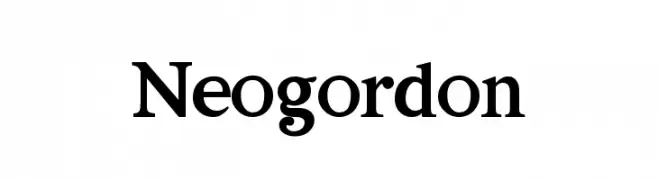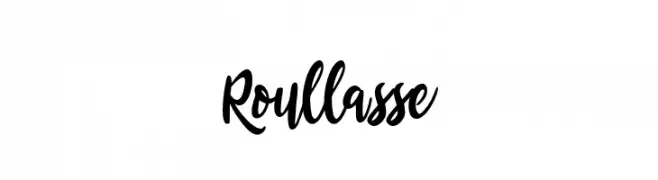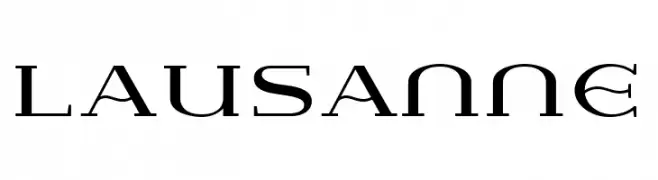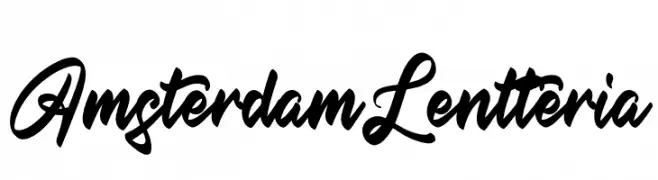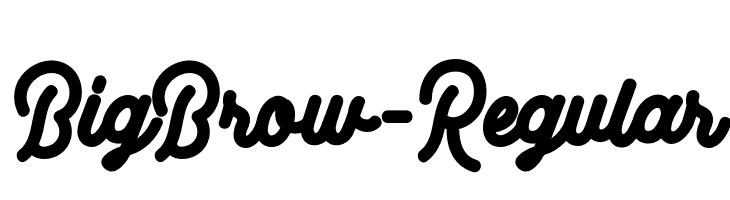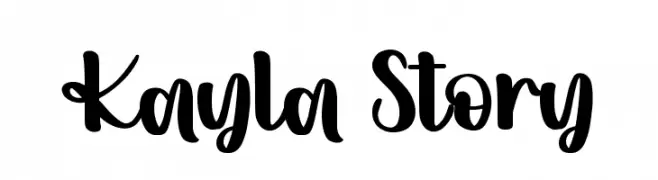
A bold, chunky font with a playful, retro aesthetic and thick, uniform strokes.
A classic serif font with bold strokes and elegant serifs.
A dynamic and expressive handwritten font with fluid strokes and a playful aesthetic.
An edgy, angular font with geometric elements and decorative details.
A modern, elegant font with geometric and humanist influences.
A modern, elegant script font with flowing, cursive strokes.
A gothic Blackletter font with sharp, angular lines and decorative serifs.
A whimsical and playful Halloween-themed icon font.
A bold, flowing script font with elegant cursive letterforms.
A bold, flowing script font with a lively and elegant style.